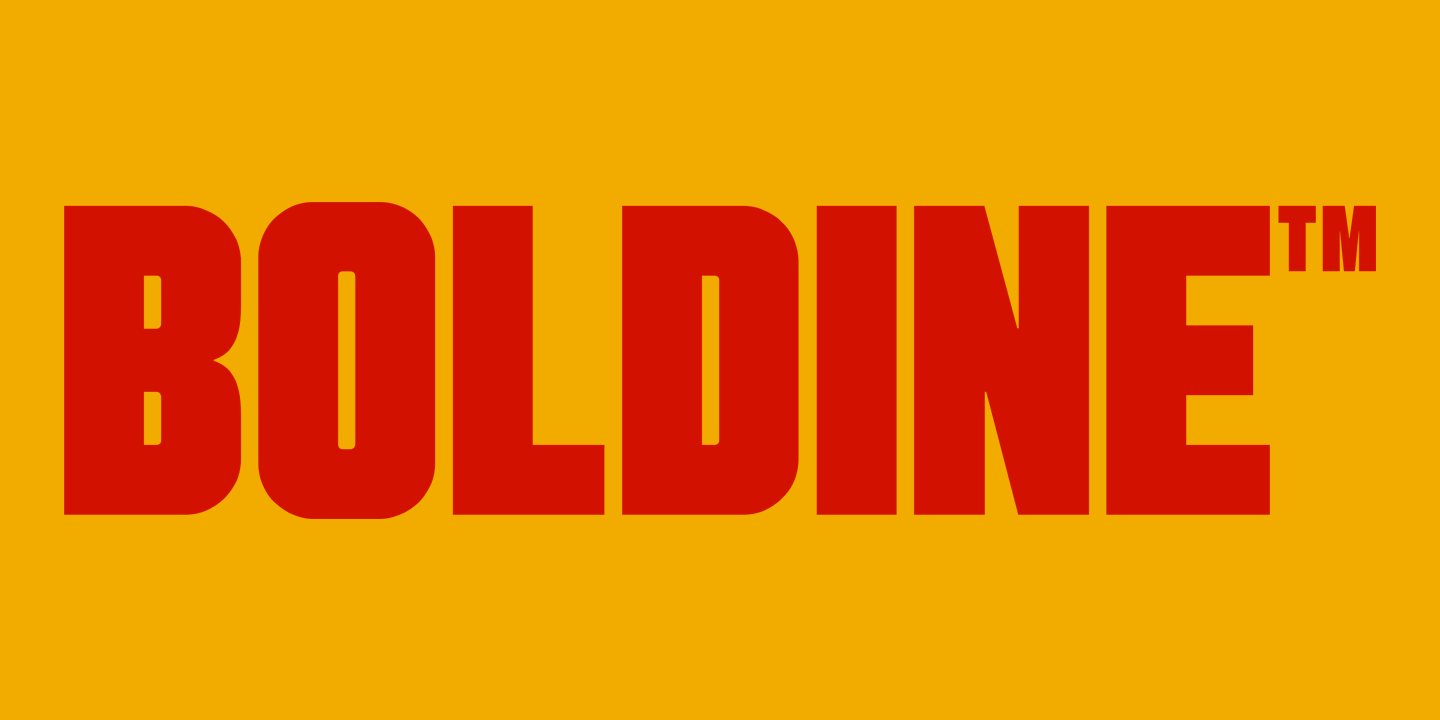
Boldine Font is perfect for confident brand headlines, powerful corporate presentations, assertive marketing campaigns, strong leadership branding, bold statement designs, impactful poster typography, commanding business logos, and authoritative editorial layouts. This commandingly bold typeface excels in projects requiring unwavering confidence and visual dominance where strength meets professional sophistication.
What makes Boldine Font exciting is its fearless embodiment of confidence and authority through powerfully constructed letterforms that command immediate attention and respect. The font features robust characters with assertive proportions and commanding presence that convey leadership, determination, and uncompromising professional strength. Its confident character makes it perfect for brands and leaders who need to establish immediate authority and communicate with absolute clarity in competitive business environments.
Boldine Font family includes comprehensive weight variations and authoritative alternatives that provide extensive design flexibility for leadership and corporate applications. The family typically offers medium, semibold, bold, extra bold, and black weights, along with condensed versions and commanding symbols that enhance its powerful aesthetic and professional authority applications.
Whether you're developing executive leadership branding, creating high-impact advertising campaigns, or designing authoritative corporate communications, Boldine Font Free Download delivers exceptional commanding presence across all professional applications. This font's powerful appeal and leadership aesthetic make it essential for organizations and individuals who need to project unwavering confidence and establish immediate credibility.
The powerfully crafted letterforms and commanding proportions of Boldine Font ensure outstanding visual impact while maintaining excellent readability across all professional contexts. Its distinctive authoritative personality and leadership symbolism create lasting impressions that resonate with decision-makers and audiences seeking strong, reliable leadership. Download Boldine Font today and command attention in your creative projects with this boldly confident typeface that perfectly embodies the essence of professional strength and unwavering authority.